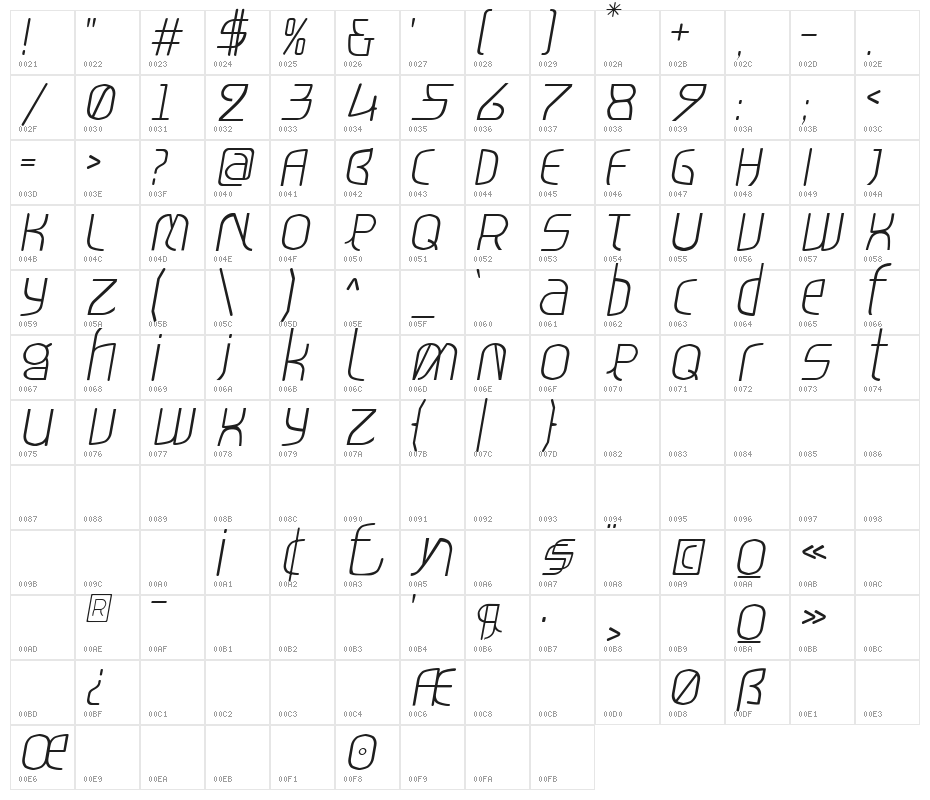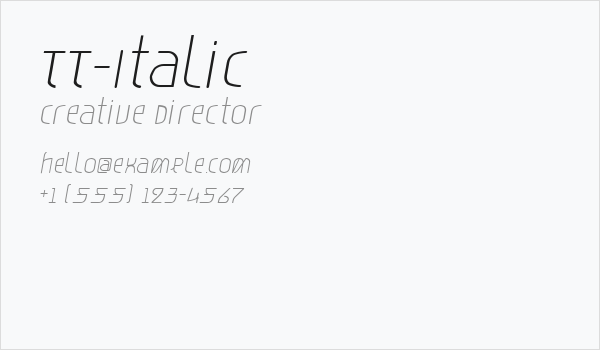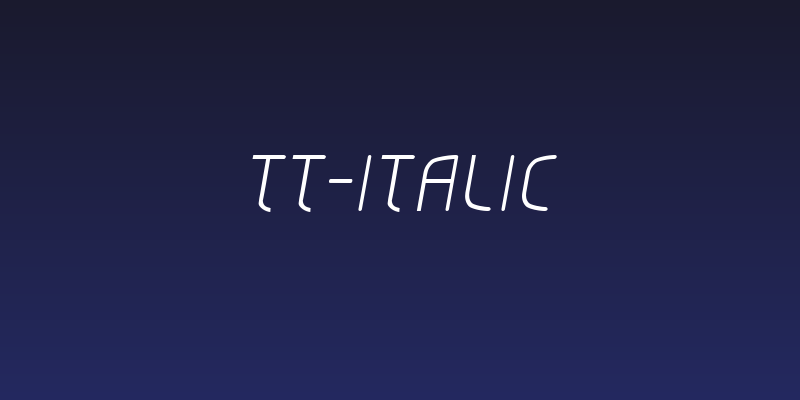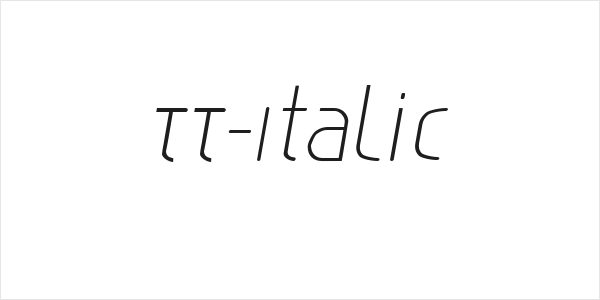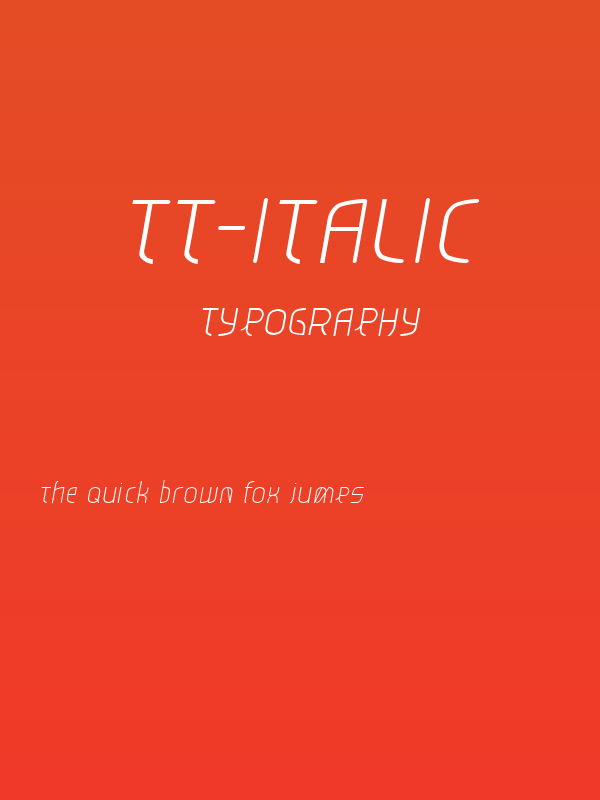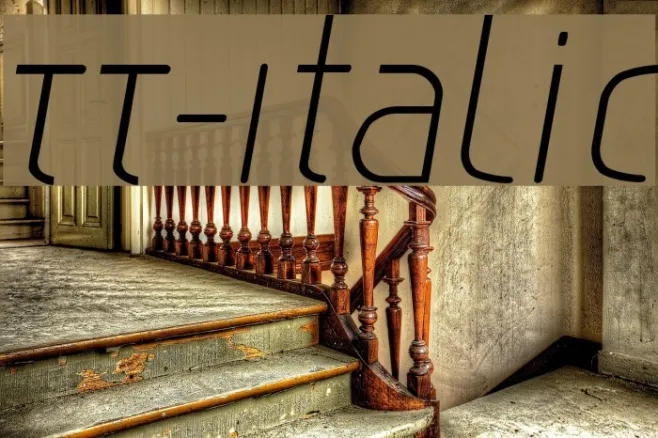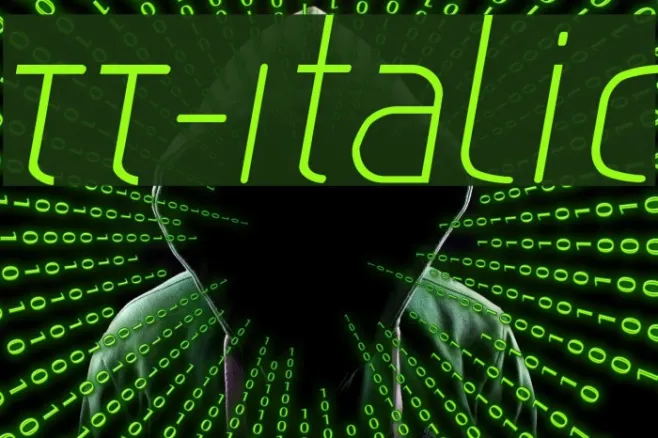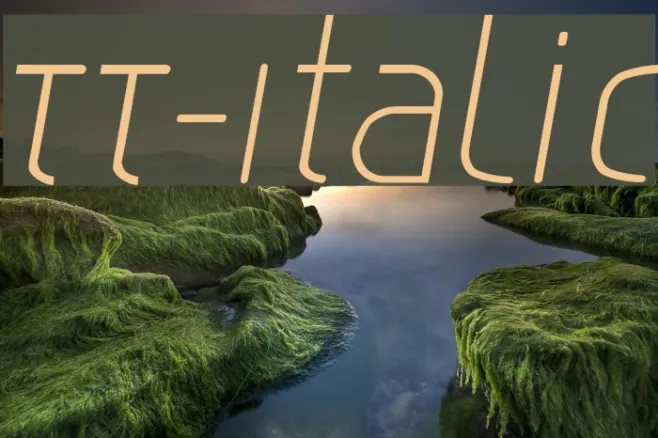
TT-Italic Font
TT-Italic Description
This font exhibits a sleek, modern design with a distinct italic slant, giving it a dynamic and forward-moving appearance. The characters are crafted with a consistent stroke width, contributing to a clean and uniform look. The uppercase and lowercase letters maintain a harmonious balance, while the numerals and special characters are designed to complement the overall aesthetic. The font's geometric structure is evident in its angular lines and curves, making it suitable for contemporary design projects. Its legibility is enhanced by the generous spacing between characters, ensuring clarity even at smaller sizes.
| Use Case | Headlines, Logos, Editorial design |
| Proposed Projects | Ideal for branding, advertising, and editorial design projects that require a modern and dynamic touch. |